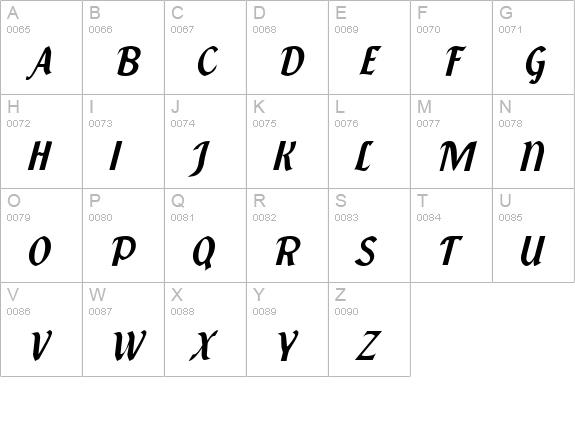
Federhozen BoldItalic Font Details
Federhozen BoldItalic is a striking and dynamic font that exudes a sense of confidence and modernity. With its bold strokes and elegant italics, this typeface is perfect for making a statement in any design project. The unique curves and sharp angles of Federhozen BoldItalic make it stand out from the crowd, adding a touch of sophistication and flair to your text. The best part about Federhozen BoldItalic is that it is completely free to download at FontsMarket.com. Whether you're working on a branding project, a poster design, or simply want to add some personality to your text, Federhozen BoldItalic is the perfect choice. Don't miss out on the opportunity to elevate your designs with this stylish and versatile font that is just a click away. Download Federhozen BoldItalic now and let your creativity soar!